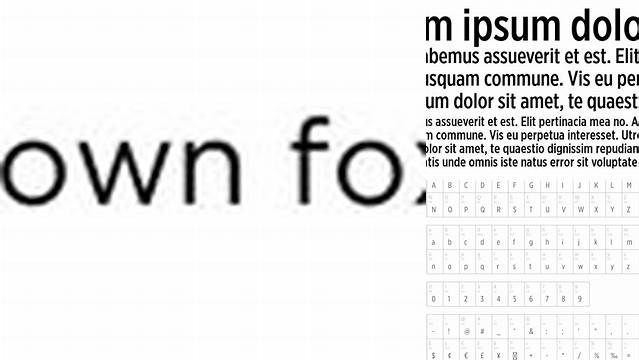
Gotham XNarrow Book Font: Free Download Guide & Alternatives
Hey guys! Are you on the lookout for a sleek, modern font that can add a touch of sophistication to your design projects? Look no further! In this comprehensive guide, we're diving deep into the world of Gotham XNarrow Book font, exploring its unique characteristics, its versatility, and, most importantly, how you can snag a free download. Whether you're a seasoned designer or just starting out, understanding the nuances of typography is crucial, and Gotham XNarrow Book is definitely a font worth adding to your arsenal. This font, known for its clean lines and contemporary feel, has become a favorite among designers for a wide range of applications, from branding and advertising to web design and editorial layouts. In this article, we will explore everything you need to know about this popular typeface, including its history, features, and how to legally and safely download it for free. We'll also discuss its various uses and provide tips on how to effectively incorporate it into your projects. So, buckle up and get ready to explore the world of Gotham XNarrow Book, and by the end of this article, you'll be well-equipped to make the most of this fantastic typeface in your creative endeavors. Let's jump right in and discover why Gotham XNarrow Book might be the perfect choice for your next project. We'll also touch on some common pitfalls to avoid when searching for free fonts online, ensuring that you stay safe and your system remains secure.
What is Gotham XNarrow Book Font?
First things first, let's get acquainted with the star of the show: Gotham XNarrow Book. This font is part of the larger Gotham family, designed by Tobias Frere-Jones in 2000. Inspired by the architectural signage of New York City, Gotham exudes a modern, geometric vibe that's both stylish and highly readable. The XNarrow Book variant is a condensed version, making it perfect for situations where space is at a premium without sacrificing legibility. This specific style is particularly useful for headlines, body text, and other design elements where you need a compact yet impactful font. The clean and minimalist aesthetic of Gotham XNarrow Book makes it a versatile choice for a wide range of projects. Think about those times when you needed a font that feels both contemporary and classic – that's where Gotham XNarrow Book shines. Its geometric structure and even proportions give it a sense of stability and professionalism, while its narrow width allows it to fit seamlessly into tight spaces without sacrificing readability. It’s this balance of form and function that has made Gotham XNarrow Book a staple in the design world. The font’s design is rooted in mid-20th century architectural lettering, which gives it a timeless quality. This historical influence, combined with its modern execution, makes it a font that feels both familiar and fresh. Whether you’re designing a website, creating marketing materials, or working on a print layout, Gotham XNarrow Book offers a level of versatility that’s hard to match. Its clean lines and clear letterforms ensure that your message is conveyed effectively, no matter the medium. Plus, its condensed nature means you can pack more text into less space, which can be a lifesaver in tight design constraints. Let’s delve a little deeper into the features that make this font so special and why it might just be the perfect fit for your next project.
Key Characteristics of Gotham XNarrow Book
So, what makes Gotham XNarrow Book stand out from the crowd? Its key characteristics include its geometric design, excellent legibility, and condensed form. The geometric structure gives it a modern and clean appearance, while the narrow width allows for efficient use of space. This combination makes it ideal for headlines, body text, and various other design elements. Its legibility is top-notch, even at smaller sizes, making it a great choice for both print and digital applications. The clean lines and consistent letterforms contribute to a smooth reading experience, which is crucial for maintaining the reader's attention. When you use Gotham XNarrow Book, you're not just choosing a font; you're choosing a typeface that prioritizes readability and clarity. The condensed nature of Gotham XNarrow Book is another significant advantage. In designs where space is limited, this font allows you to fit more text without making it feel cramped or overwhelming. This makes it an excellent option for brochures, posters, and websites with a lot of content. Think about how often you need to squeeze text into a confined area – Gotham XNarrow Book can be a real lifesaver in those situations. Furthermore, the consistent weight and spacing across different characters contribute to the font's overall harmony and balance. This consistency ensures that your text looks professional and polished, regardless of the specific words or phrases you're using. The attention to detail in the design of Gotham XNarrow Book is evident in every glyph, making it a font that you can rely on for high-quality typography. Another key characteristic is its versatility in different contexts. Whether you're designing a sleek, modern website or a traditional print document, Gotham XNarrow Book can adapt to suit your needs. Its neutral yet sophisticated appearance makes it a safe bet for a wide range of projects, ensuring that your typography enhances your design without overpowering it. These characteristics make Gotham XNarrow Book a powerful tool in any designer's toolkit, offering a blend of style, functionality, and versatility that’s hard to beat.
Why is Gotham XNarrow Book So Popular?
You might be wondering, what's the big deal about Gotham XNarrow Book? Well, its popularity stems from its versatility, modern aesthetic, and high legibility. Designers love it because it works well in a variety of contexts, from website headers to body text in magazines. It's a go-to font for projects that need to convey a sense of professionalism and clarity. The modern aesthetic of Gotham XNarrow Book is a major draw for designers looking to create contemporary designs. Its clean lines and geometric forms give it a timeless quality that fits well with current design trends. Whether you’re working on a minimalist layout or a more complex composition, Gotham XNarrow Book can seamlessly integrate into your design. The font’s high legibility is another key factor in its popularity. In the world of typography, readability is paramount, and Gotham XNarrow Book excels in this area. Its clear letterforms and consistent spacing make it easy to read, even in small sizes or at a distance. This is particularly important for web design, where users may be viewing content on a variety of devices and screen sizes. The versatility of Gotham XNarrow Book cannot be overstated. It’s a font that can be used for headlines, body text, and even captions, making it a one-stop-shop for many design projects. Its neutral yet stylish appearance means it can be paired with a wide range of other fonts, giving you plenty of flexibility in your design choices. Think about how often you need a font that can adapt to different roles within a design – Gotham XNarrow Book delivers on this front. Moreover, Gotham XNarrow Book has been used in high-profile branding projects, which has further cemented its status as a top-tier typeface. Its association with well-known brands and campaigns has given it a certain cachet, making it a popular choice for designers who want to convey a sense of quality and sophistication. The font's ability to convey a sense of trust and reliability is another reason for its widespread use. In industries such as finance and technology, where credibility is crucial, Gotham XNarrow Book is often chosen for its professional and authoritative appearance. It’s a font that communicates competence and attention to detail, which can be invaluable in building brand trust. All these factors combined have contributed to the enduring popularity of Gotham XNarrow Book, making it a staple in the world of typography.
Free Alternatives to Gotham XNarrow Book
If a free download of Gotham XNarrow Book proves elusive, don't worry! There are several excellent free alternatives that capture a similar vibe. Fonts like Montserrat, Open Sans, and Lato offer a clean, geometric aesthetic that's reminiscent of Gotham. These fonts are available on Google Fonts and are free for both personal and commercial use. Montserrat is a particularly popular alternative, known for its clean lines and modern feel. It shares many of the same characteristics as Gotham XNarrow Book, including its geometric structure and high legibility. Montserrat is available in a variety of weights and styles, making it a versatile choice for a wide range of design projects. Open Sans is another excellent option, offering a slightly softer and more rounded appearance compared to Gotham. Its neutral and friendly design makes it a great choice for body text and other long-form content. Open Sans is also highly legible on screens, making it well-suited for web design. Lato is a sans-serif typeface with a semi-rounded design, giving it a warm and approachable feel. It's a versatile font that works well in both headlines and body text, and its clean lines ensure readability in a variety of contexts. Lato is a solid choice for projects that need a modern yet friendly touch. When choosing a font alternative, it’s important to consider the specific needs of your project. Think about the overall tone and message you want to convey, and select a font that aligns with your goals. Consider factors such as legibility, weight, and style, and experiment with different options to see what works best. Keep in mind that font pairings can also play a crucial role in the overall success of your design. Combining Gotham XNarrow Book alternatives with other fonts can create a visually appealing and harmonious composition. For example, pairing Montserrat with a serif font like Merriweather can create a balanced and professional look. In addition to Google Fonts, there are other resources for finding free font alternatives. Websites like Font Squirrel and DaFont offer a wide selection of free fonts, but it’s important to exercise caution and carefully review the licensing terms before using them. Always ensure that the font is licensed for your intended use and that you’re downloading it from a reputable source. By exploring these free alternatives, you can achieve a similar aesthetic to Gotham XNarrow Book without having to purchase a commercial license. This can be a cost-effective solution for designers on a budget, while still ensuring high-quality typography in their projects.
In conclusion, Gotham XNarrow Book is a fantastic font choice for a wide range of design projects. Its modern aesthetic, high legibility, and versatile nature make it a popular option among designers. While finding a free download of the official font can be challenging, exploring free alternatives and legitimate trial options can help you achieve a similar look without breaking the bank. Remember to always prioritize safety and legality when downloading fonts, and be sure to explore the wonderful world of typography to find the perfect fonts for your creative endeavors. By understanding the characteristics of Gotham XNarrow Book and its alternatives, you can make informed decisions about your typography and create visually stunning designs. The versatility of Gotham XNarrow Book makes it a valuable asset in any designer's toolkit. Whether you’re working on a website, a print project, or a branding campaign, this font can adapt to your needs and enhance the overall aesthetic of your work. Its clean lines and geometric forms convey a sense of professionalism and modernity, while its high legibility ensures that your message is clear and effective. Exploring free alternatives like Montserrat, Open Sans, and Lato allows you to achieve a similar look without incurring the cost of a commercial license. These fonts offer a range of styles and weights, giving you plenty of flexibility in your design choices. Remember to consider the specific requirements of your project when selecting a font, and don’t be afraid to experiment with different options to find the perfect fit. Prioritizing safety and legality when downloading fonts is crucial. Always download fonts from reputable sources and carefully review the licensing terms before using them in your work. This will help you avoid legal issues and protect your computer from malware and other security threats. By following these guidelines, you can confidently incorporate Gotham XNarrow Book or its alternatives into your designs and create visually compelling and professional-looking projects. So go ahead, explore the world of typography, and let your creativity shine!